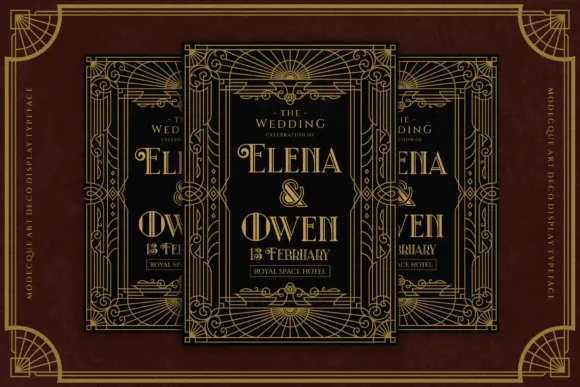
Modecque Font is a hybrid of Victorian and workmanship deco textual styles, this text style will turn into a new and fascinating pattern to investigate in plan, rich Victorian is made somewhat more manly because of the impact of craftsmanship deco, bringing about a marginally exquisite however rich textual style. Text styles that actually match the workmanship deco style yet have a slight hint of effortlessness, will be reasonable for exemplary however exquisite plans.